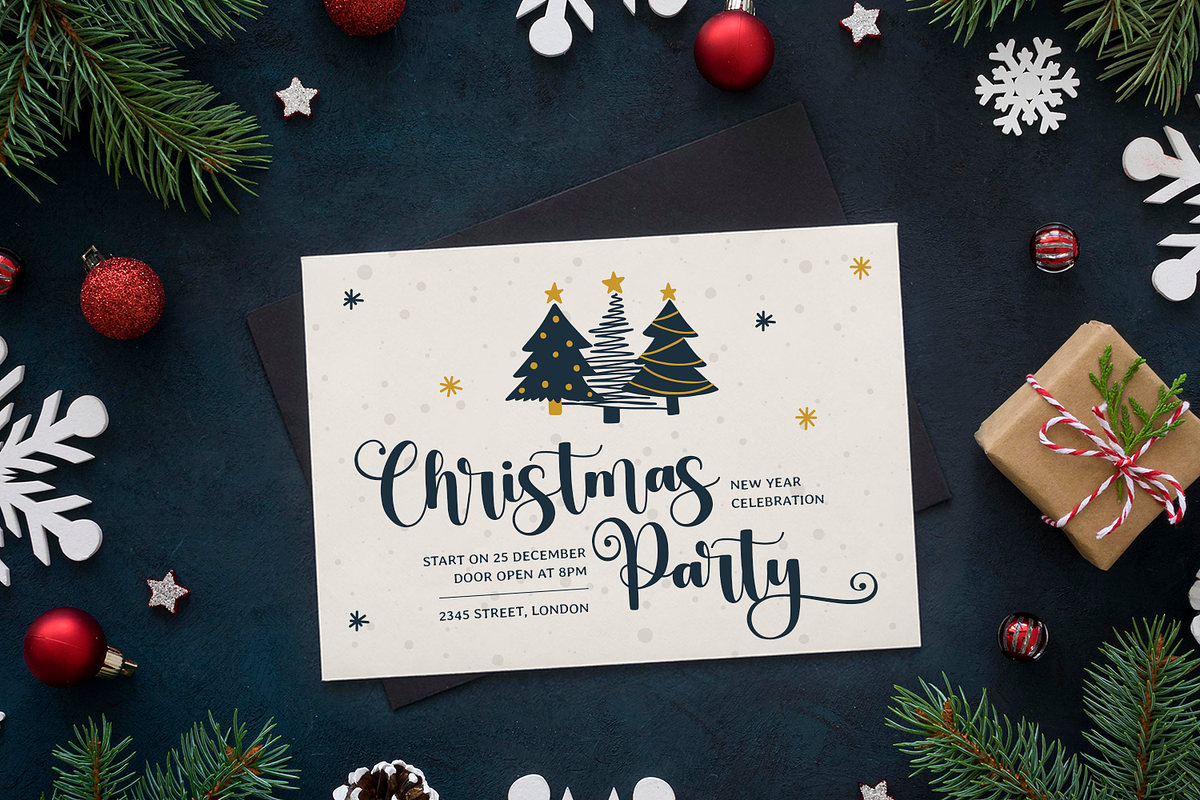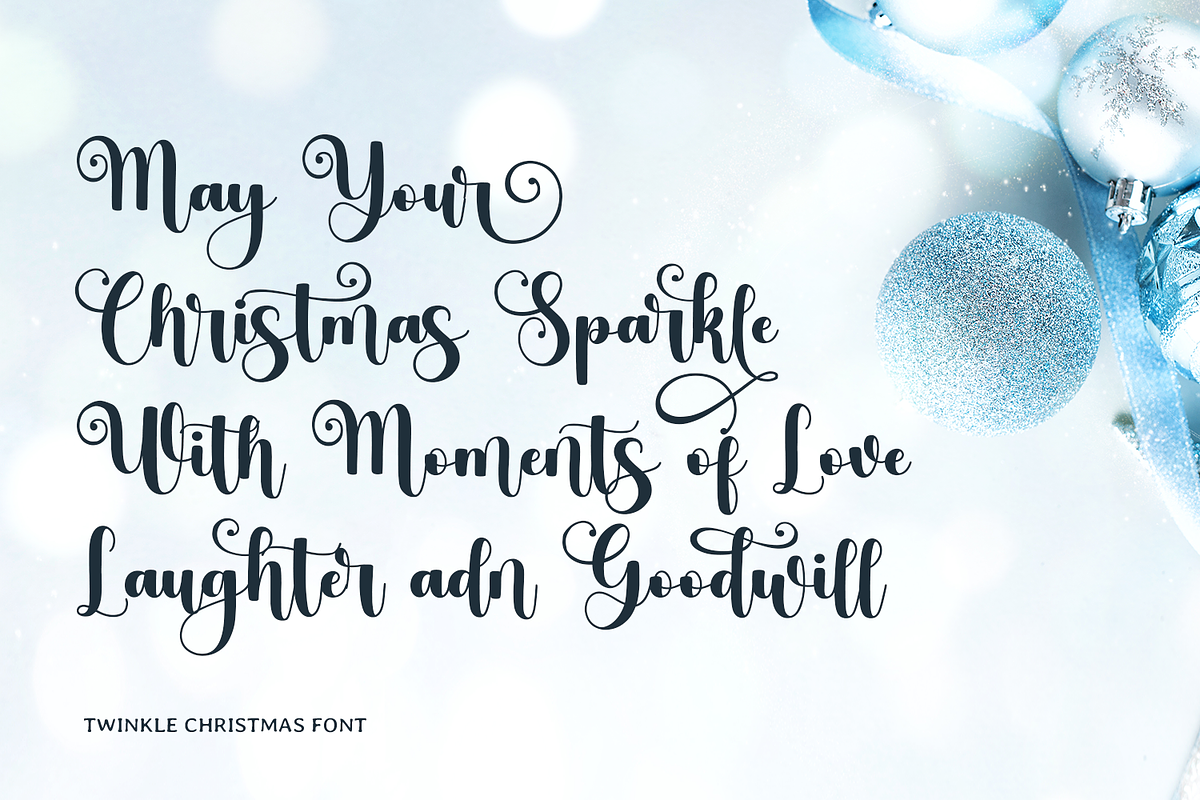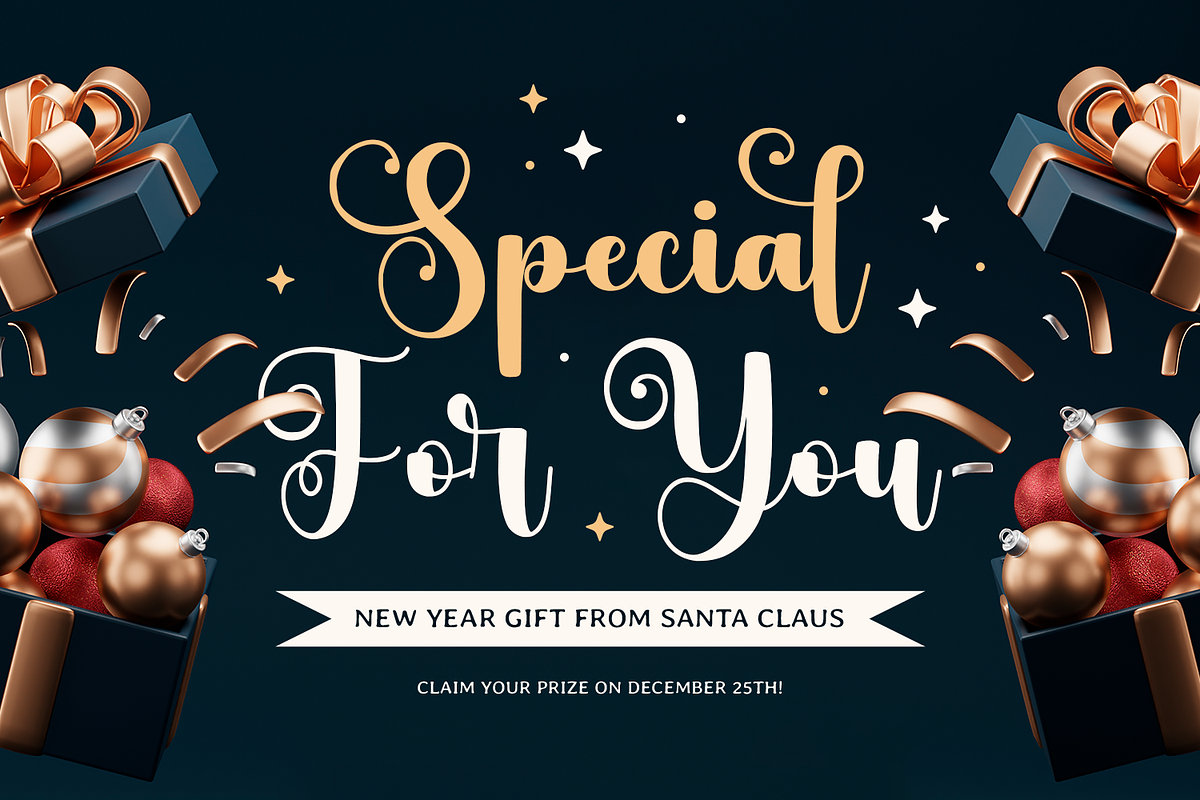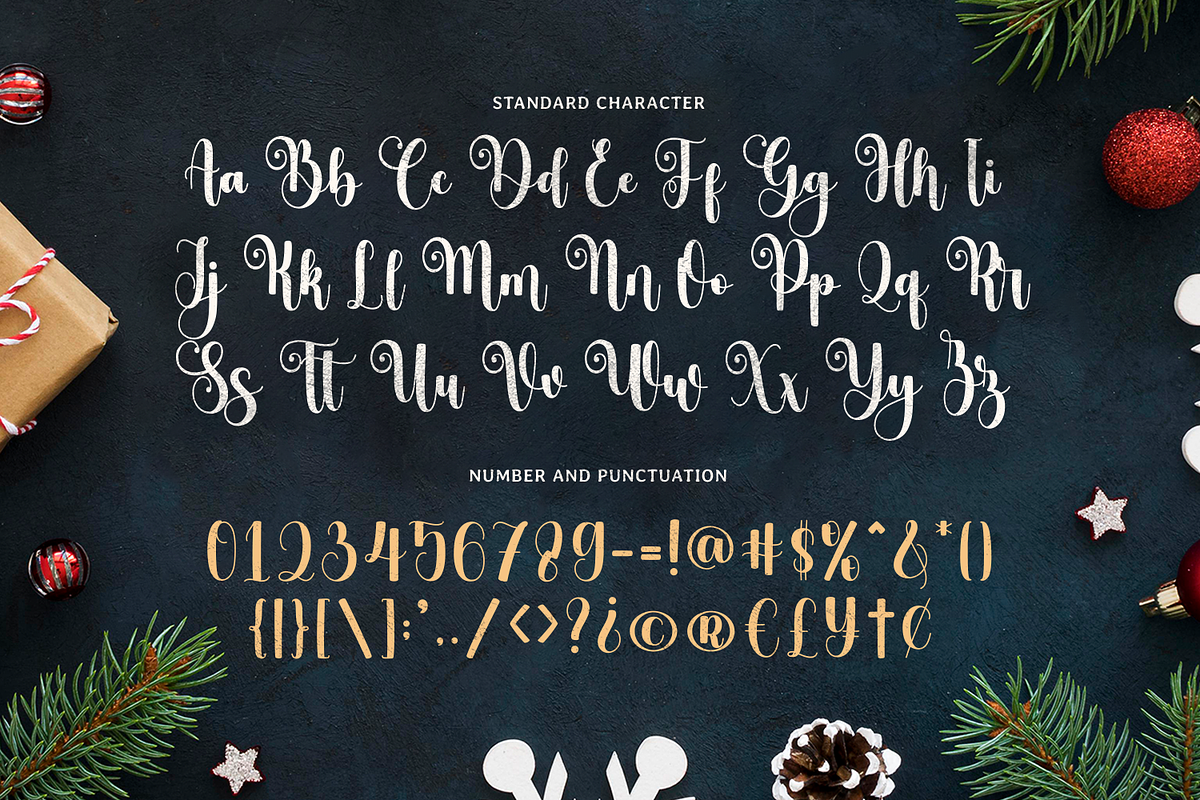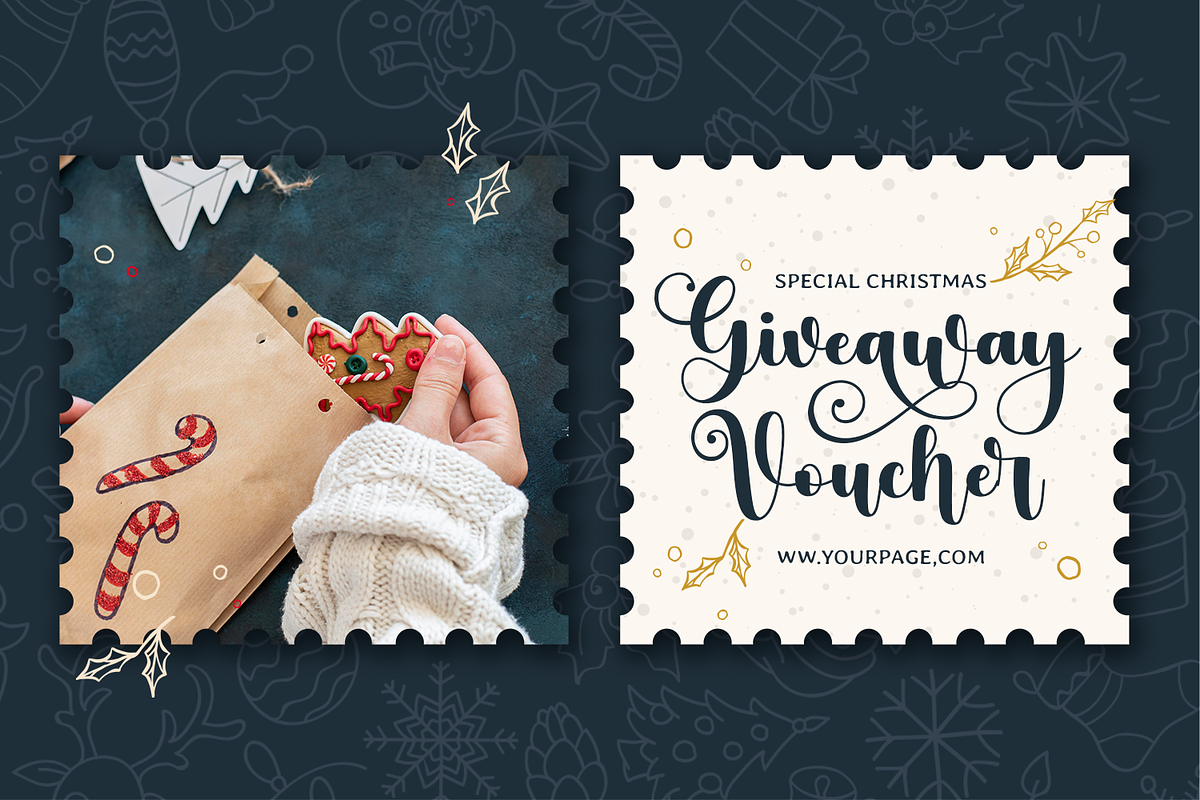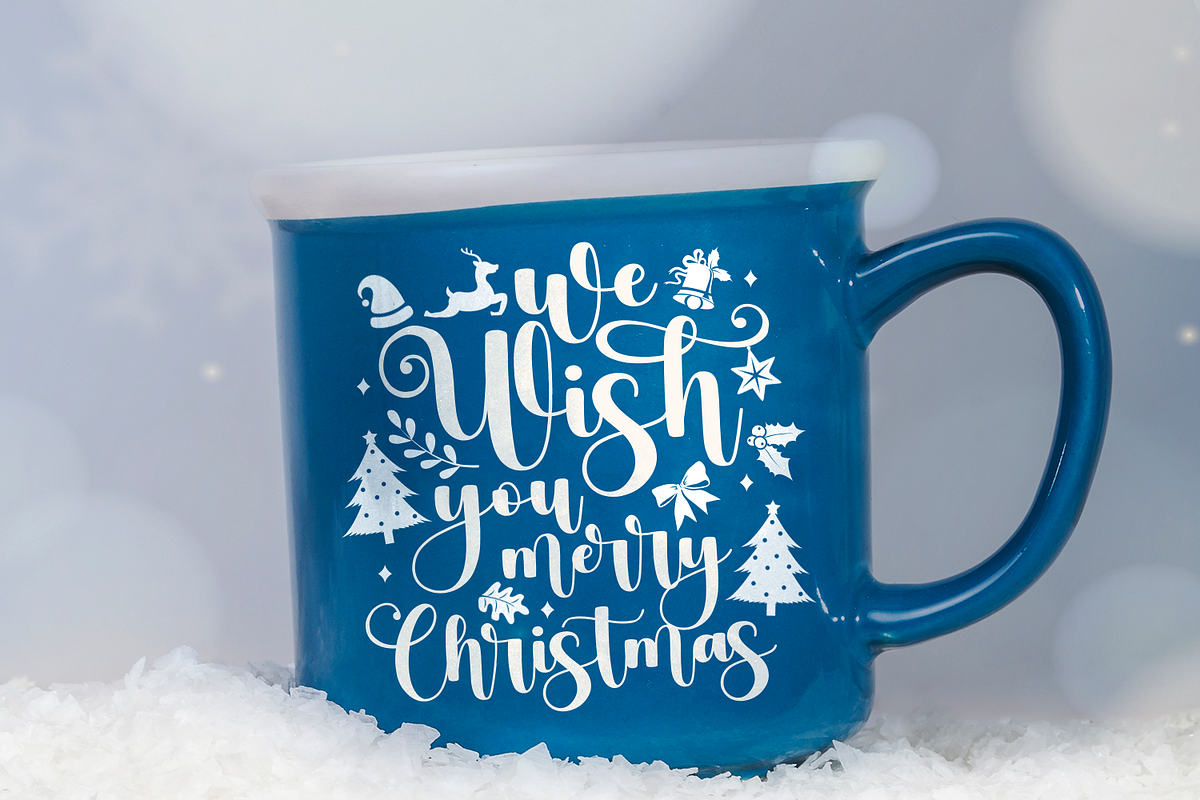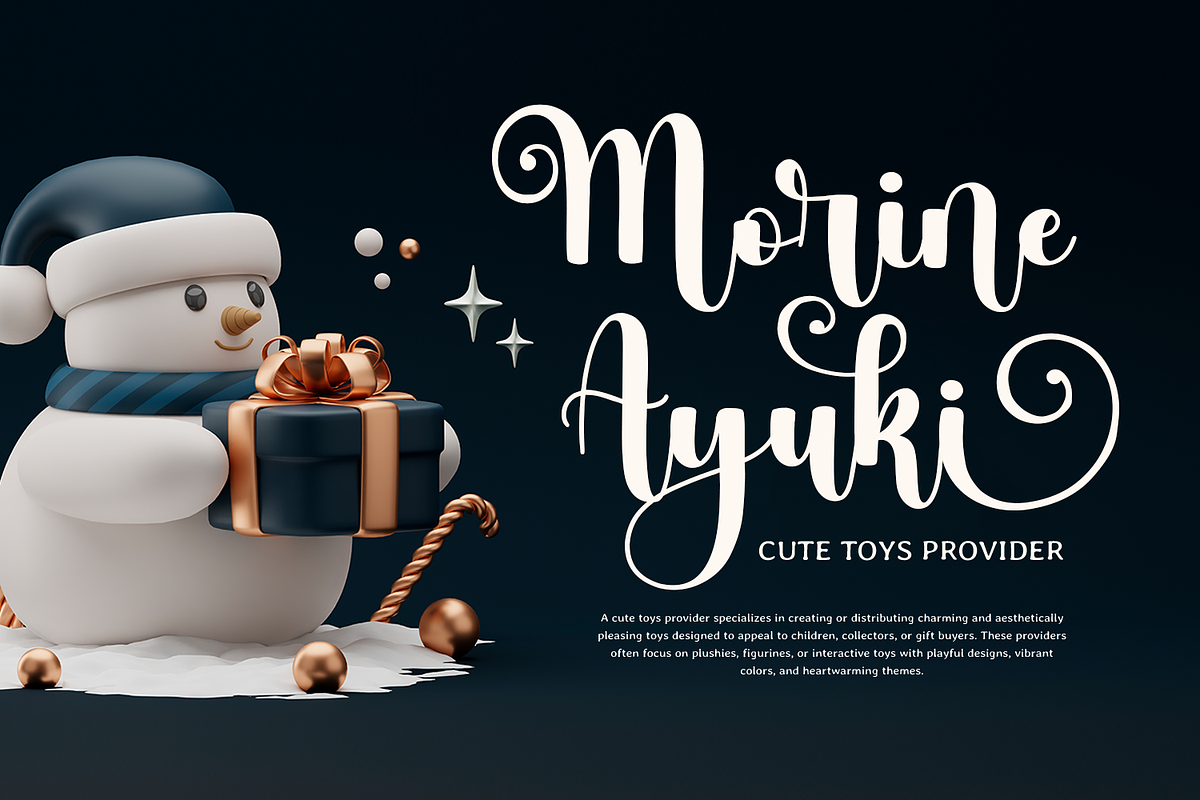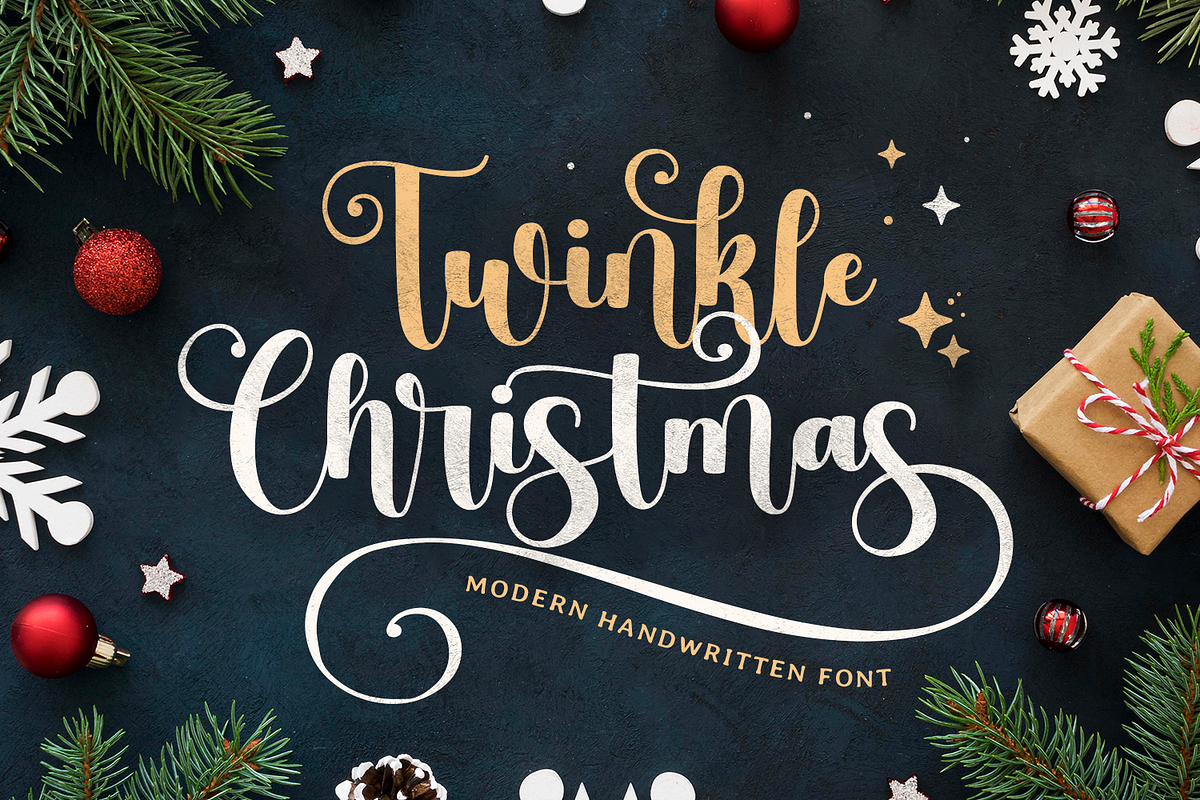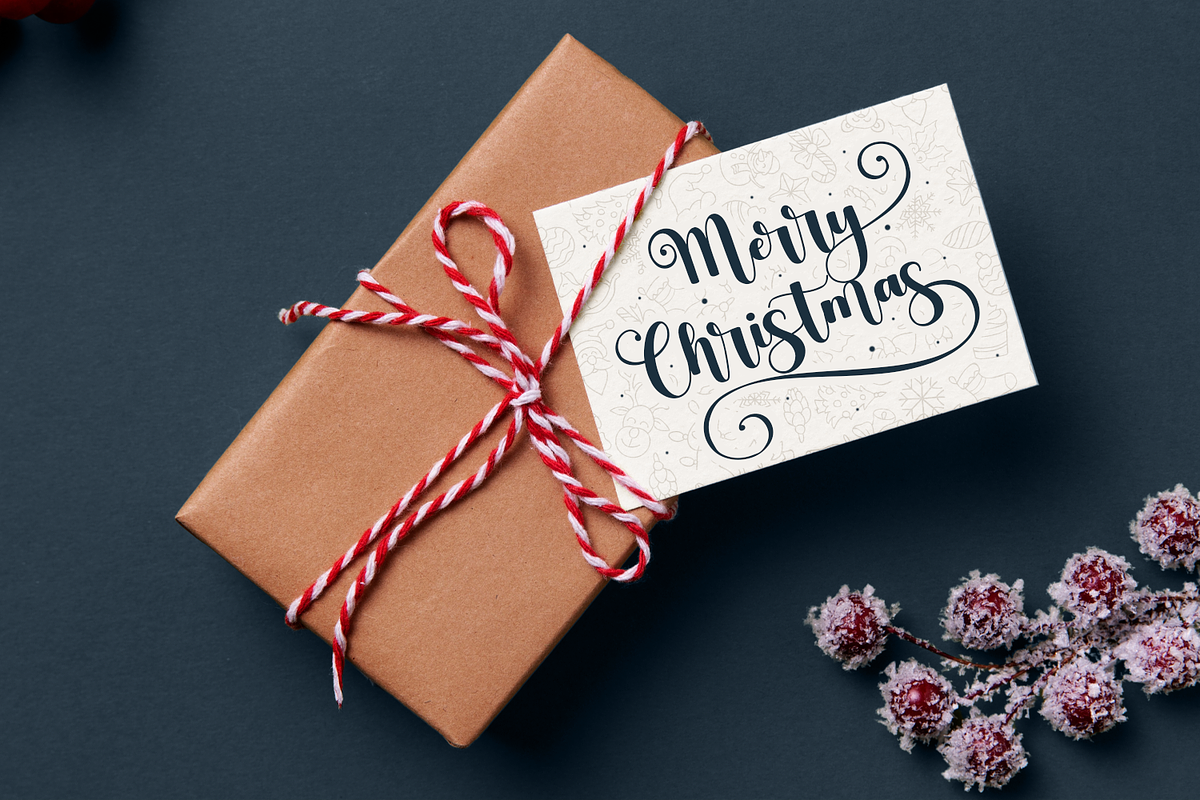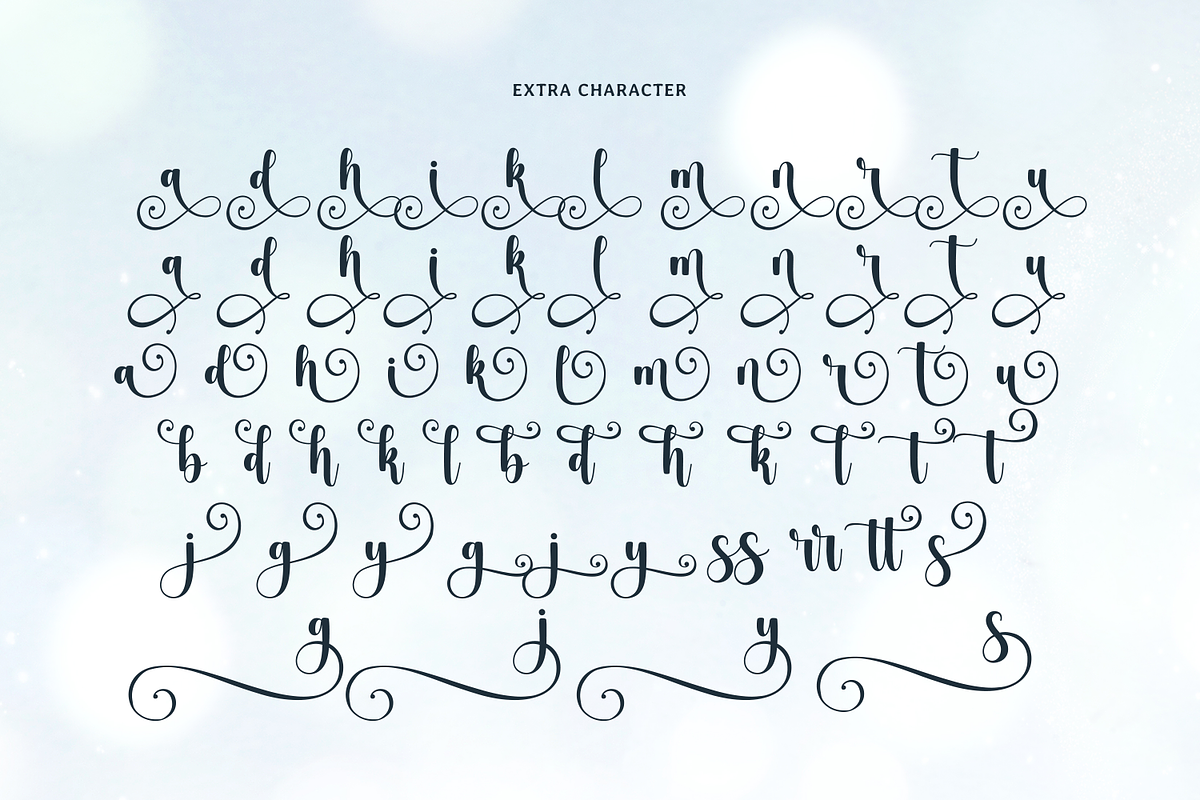
Twinkle Christmas
Twinkle Christmas is a delightful script font that sparkles with festive charm and elegance. Featuring a quirky handwritten style with smooth monoline strokes, this font is perfect for capturing the joy and magic of the holiday season. Designed with Christmas, New Year, winter, Easter, Thanksgiving, Cricut, embroidery, and craft projects in mind, it effortlessly brings a warm and celebratory feel to any design.
This font is truly unique, with graceful tails on both the beginning and ending swashes, giving each letter a sense of movement and sophistication. Whether used for holiday cards, gift tags, seasonal decorations, or SVG crafts, Twinkle Christmas adds a cheerful and polished touch to any project. Its playful yet elegant design makes it suitable for both fun and formal occasions.
Create captivating designs with Twinkle Christmas, where every character flows seamlessly to produce stunning, cohesive lettering. This versatile font fits beautifully into Christmas-themed projects, but its charm extends to a variety of applications, from winter decor to Easter designs, making it a valuable addition to your font collection.
Ideal for designers, crafters, and hobbyists, Twinkle Christmas pairs wonderfully with other festive elements to create eye-catching invitations, banners, and social media posts. Its quirky script style and monoline consistency ensure that your creations remain visually balanced and appealing.
- Standard & Multilingual glyphs.
- Alternate glyphs & Unique Ligature.